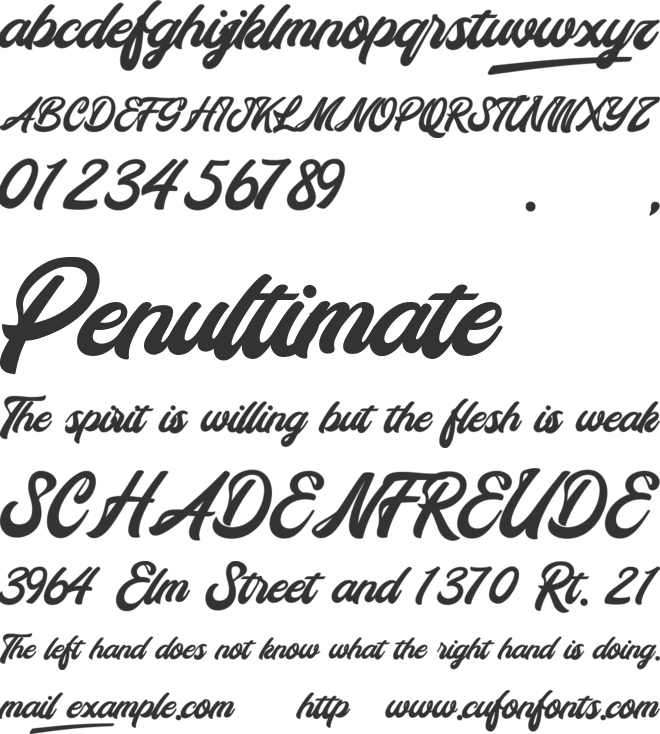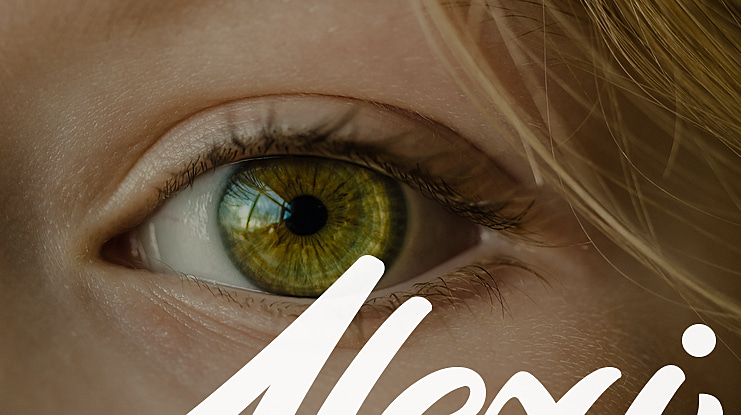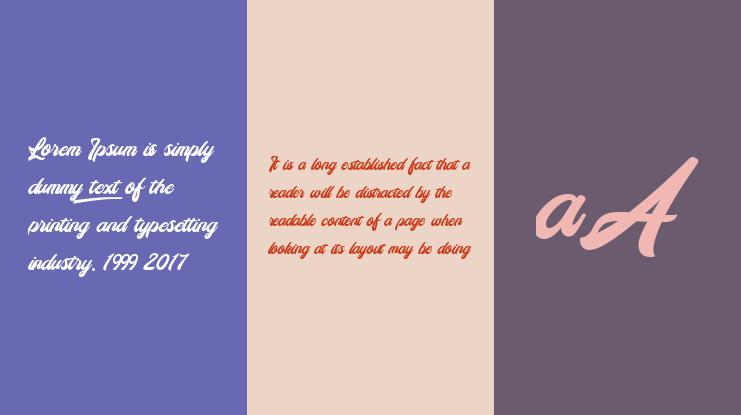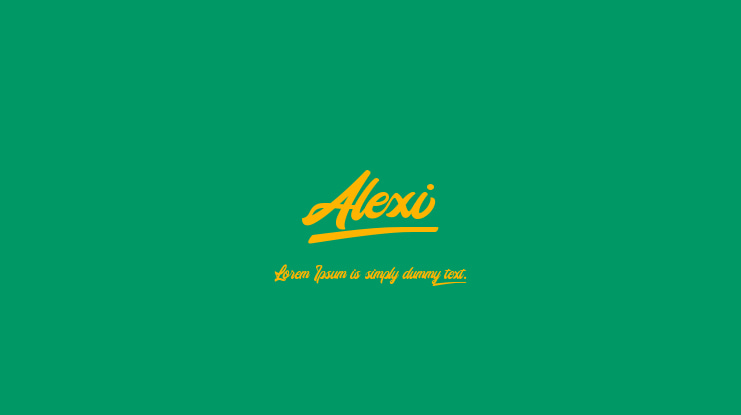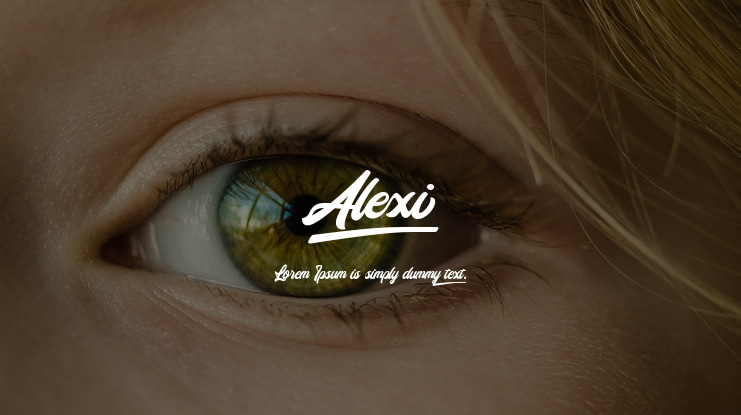
Alexi Font
alexi is a display font script you can use it for long lasting logo Please note : This demo font is ONLY FOR PERSONAL USE For commercial purpose and full version , get it here : https://www.creativefabrica.com/designer/rimbun-bambu/ or contact me via message or email me  -------------------------- (Bahasa Indonesia) Mohon perhatian, font ini berlisensi demo yang artinya hanya boleh dipakai untuk kepentingan personal, jika anda akan menggunakan untuk kepentingan komersial dengan karakter yang lebih lengkap mohon kunjungi link berikut https://www.creativefabrica.com/designer/rimbun-bambu/ atau menghubungi saya melalui email